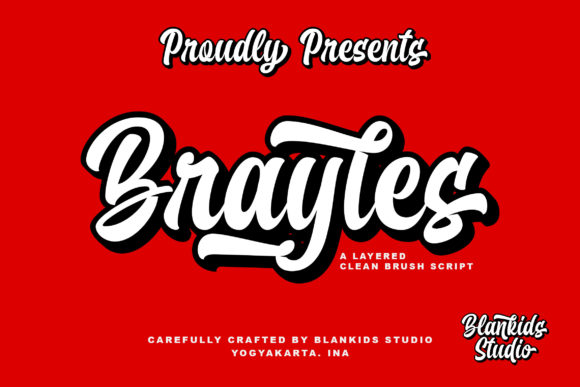
The Designer’s Delight: Brayles Font
I’ll never forget the time I was working on a project for a client who wanted a fun and quirky design. I had spent hours browsing through font libraries, but nothing seemed quite right. That was until I stumbled upon Brayles Font. It was like a breath of fresh air – unique, playful, and full of character. In this article, I’ll share my experience with Brayles Font, its features, and how to make the most of it in your design projects.
So, what do I love about Brayles Font? Here are a few things that make it stand out:
• ✨ Unique character designs that add a touch of whimsy to any project
• 💡 Extensive range of OpenType features, glyphs, and stylistic alternates
• 🎨 Perfect for designs that require a playful, creative vibe
Of course, no font is perfect, and Brayles Font has a few quirks:
• 🤔 Some characters may not work well in all contexts, such as headings or titles
• ⚠️ Limited support for non-English languages
Brayles Font was designed with the goal of creating a unique and playful font that would add a touch of whimsy to any design project. The designer drew inspiration from a range of sources, including hand-drawn lettering, street art, and vintage typography.
What is Brayles Font? Brayles Font is a fun and inspiring font with unique characters that will turn any design project into a true standout.
Is Brayles Font available in multiple languages? No, Brayles Font has limited support for non-English languages.